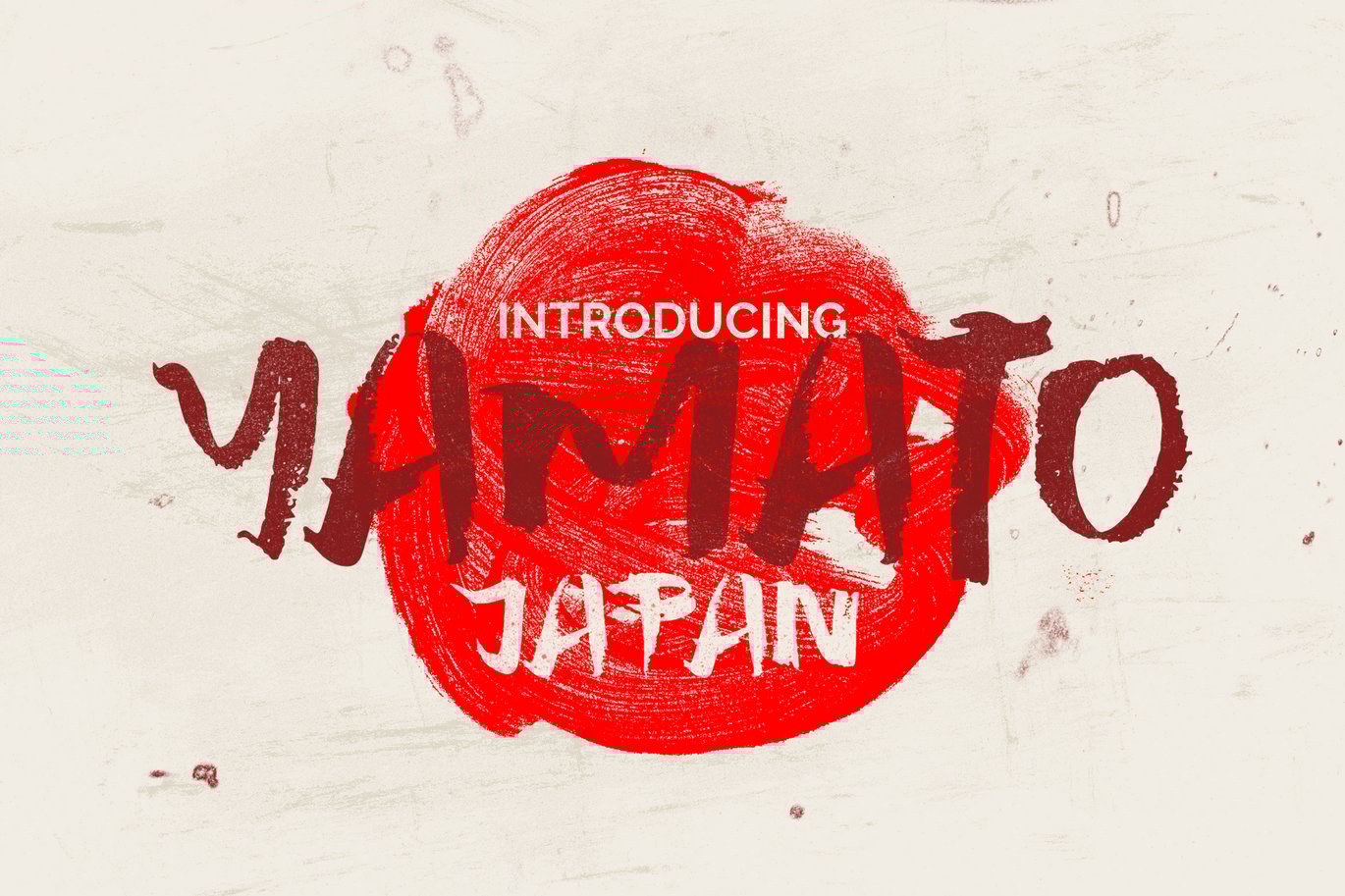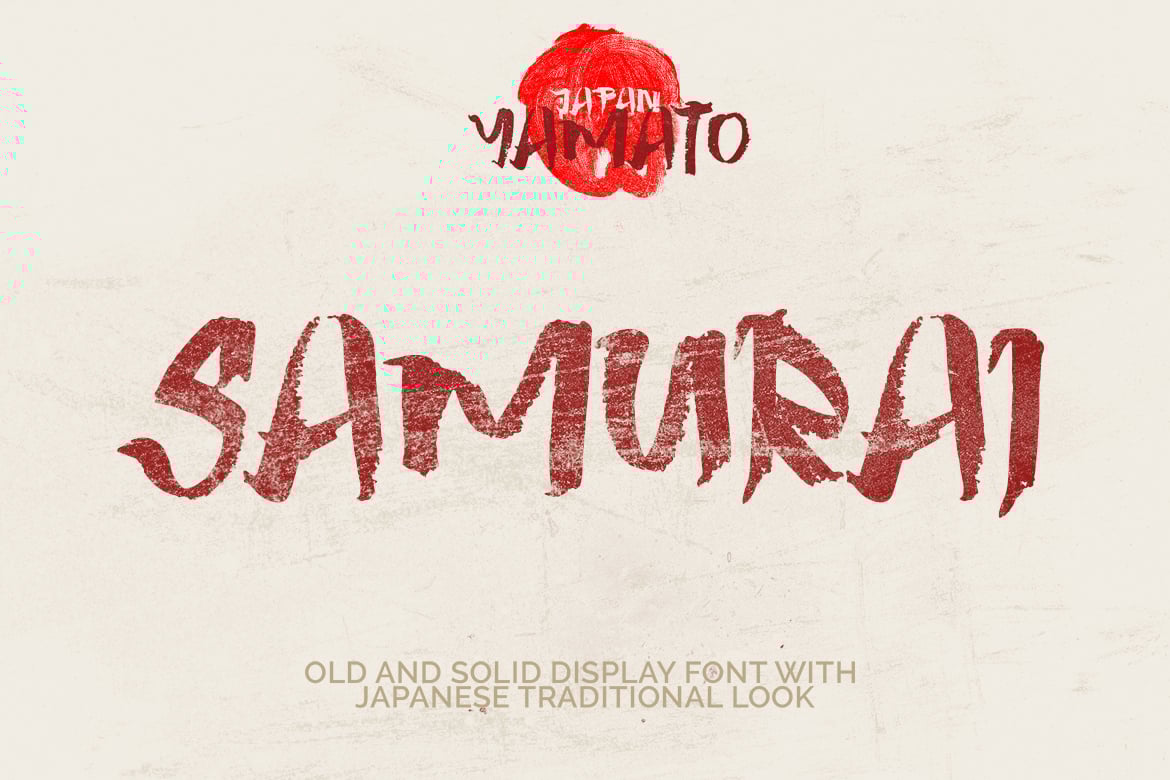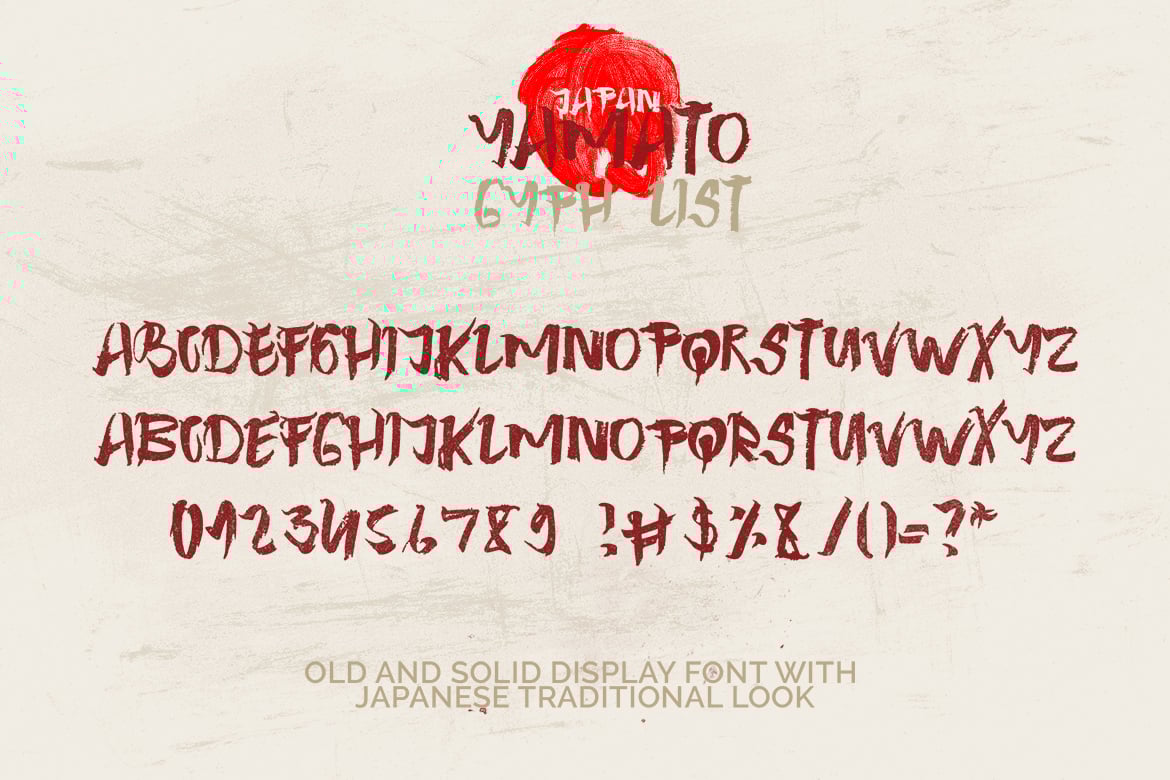
Yamato Japan Font
Yamato Japan is a bold and rough display font inspired by Japanese traditional feeling and suit for any Japanese events.
Also, the combination and usage of different letters and ligatures gives you the opportunity to have fun and at the same time create your own unique style.
With this font, you have complete freedom to use and combine various different letters, alternatives, and ligatures, by that you can be sure that your design or any kind of project will be a unique masterpiece.
• This font includes basic Latin diacritics.
*Fonts include multilingual support for; č ć ž š Č Ć Ž Š ä ö ü Ä Ö Ü ß ¿ ¡